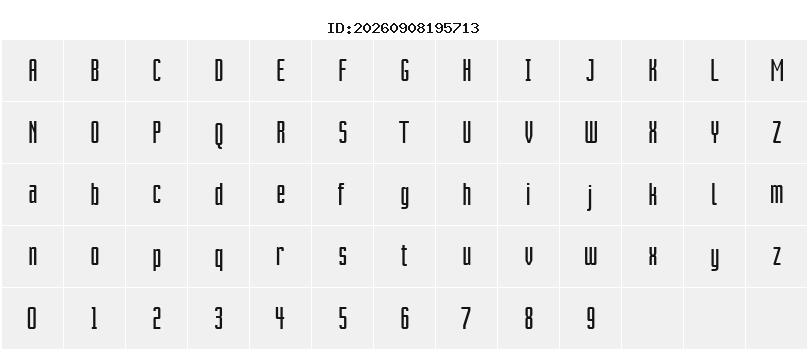
• Font Name: Vixar ASCI
• Full Font Name: Vixar ASCI
About Vixar ASCI.ttf
Vixar ASCI.ttf is a modern, elegant sans-serif font designed for ultimate readability and visual harmony. Perfect for branding, headlines, web design, and print materials.